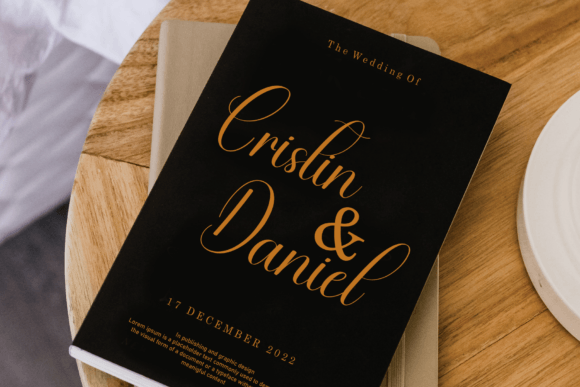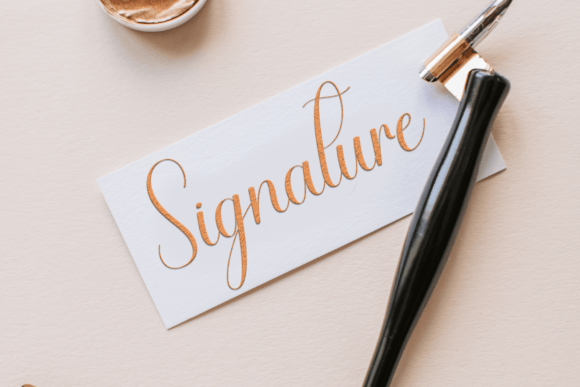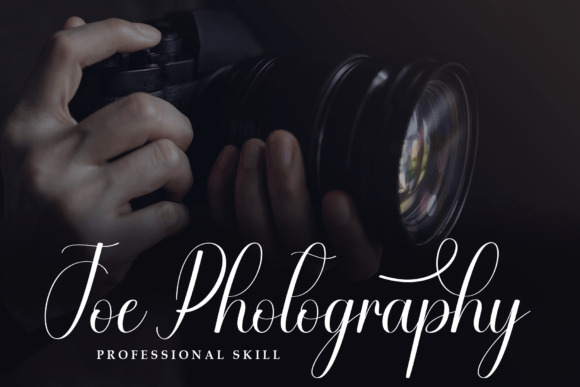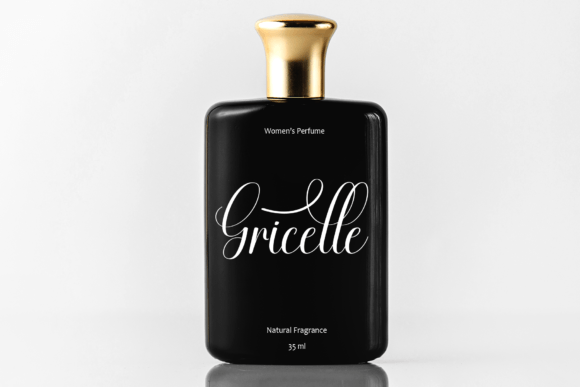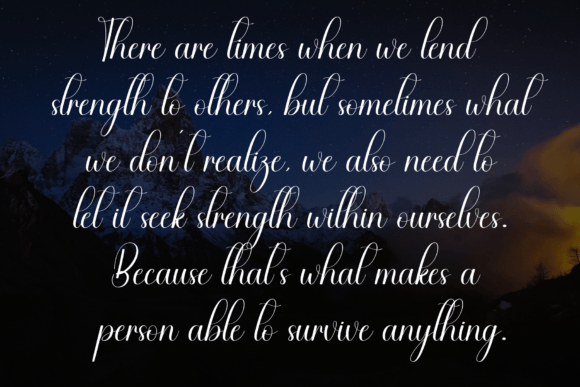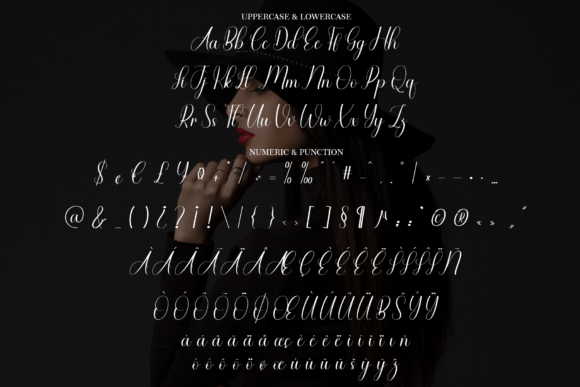
The Elegant Charm of Angeline Font: A Designer’s Delight
I’ll never forget the time I was working on a wedding invitation project, and my client asked me to create a custom design that exuded elegance and sophistication. As I scrolled through my font library, I stumbled upon Angeline Font, and it instantly stole my heart. This beautiful script font has since become a staple in my design toolkit, and I’m excited to share its charm with you.
A Personal Review of Angeline Font
As a designer, I’m always on the lookout for fonts that can elevate my projects and make them stand out. Angeline Font has been a game-changer for me, and here’s what I love about it:
- ✨ Elegant and modern script style that’s perfect for wedding invitations, cards, and other designs that need a touch of sophistication
- 💕 Fun and playful vibe that’s ideal for creative projects and DIY designs
- 🎉 Excellent for use in titles, headings, and emphasis text
While Angeline Font is a stunning addition to any design project, it’s not without its quirks. Here are a few things to keep in mind:
- 🤔 Some users may find the font a bit too ornate for body text or lengthy paragraphs
- ⚠️ Limited availability of certain OpenType features in certain software or platforms
The Story Behind Angeline Font
Angeline Font was designed with the intention of creating a beautiful, elegant script font that would be perfect for special occasions and creative projects. The designer aimed to craft a font that would be both modern and timeless, with a playful touch that would make it stand out.
| Font Name | Angeline Font |
| What is Angeline Font best used for? | Angeline Font is ideal for wedding invitations, cards, and other designs that require an elegant and modern script style. |
| Is Angeline Font suitable for body text? | While Angeline Font is highly legible, it’s best used for titles, headings, and emphasis text. For longer paragraphs, a more traditional font might be more suitable. |
| Does Angeline Font support OpenType features? | Yes, Angeline Font supports various OpenType features, including swashes, stylistic alternates, and ligatures. |